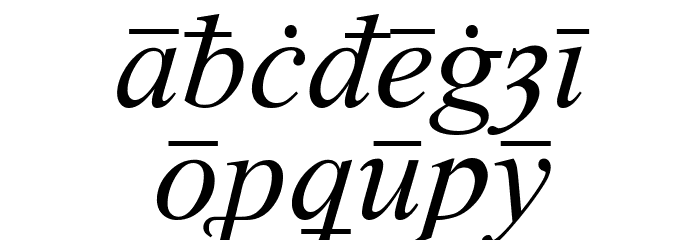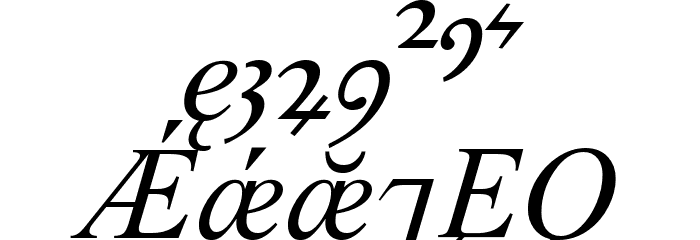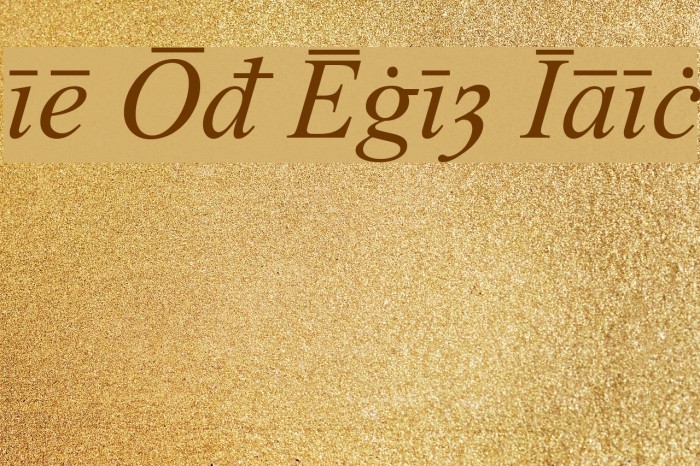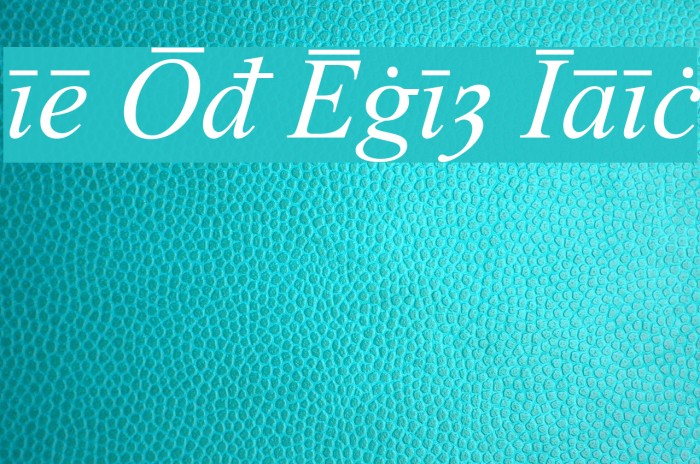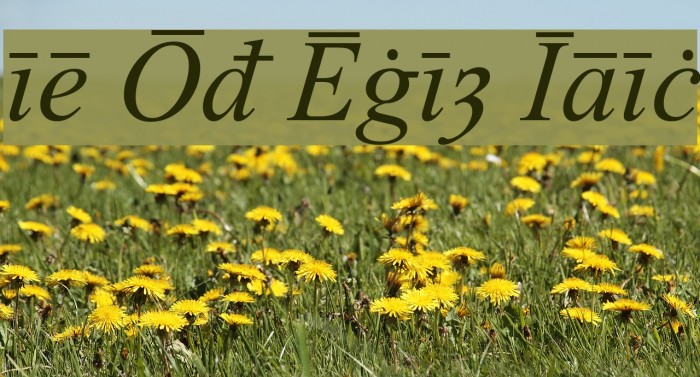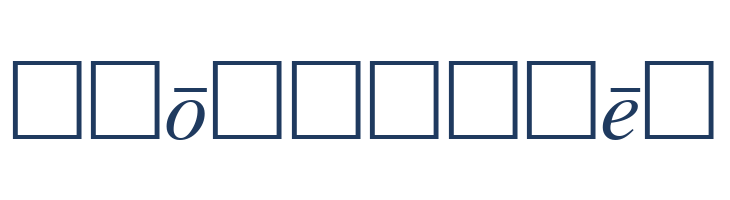
Times Old English Italic Font
This font exhibits a classic and elegant style, characterized by its italicized form and the distinctive use of diacritical marks such as macrons and dots above certain letters. The strokes are smooth and flowing, with a moderate contrast between thick and thin lines, giving it a refined and sophisticated appearance. The uppercase letters are slightly taller than the lowercase, maintaining a consistent slant throughout. The numerals and special characters are designed to complement the letterforms, ensuring a cohesive look. This font is reminiscent of traditional calligraphy, yet it maintains a modern touch with its clean lines and balanced proportions.
An elegant italic font with classic calligraphic influences and modern refinement.
- Proposed Projects: Ideal for formal invitations, certificates, branding for luxury products, or editorial design where a touch of elegance is desired.
- Category: Serif
- Overall Style: Classic
- Use Case: Headlines, Logos, Invitations